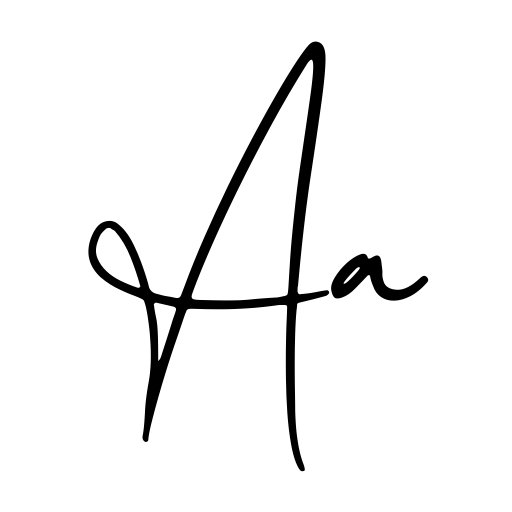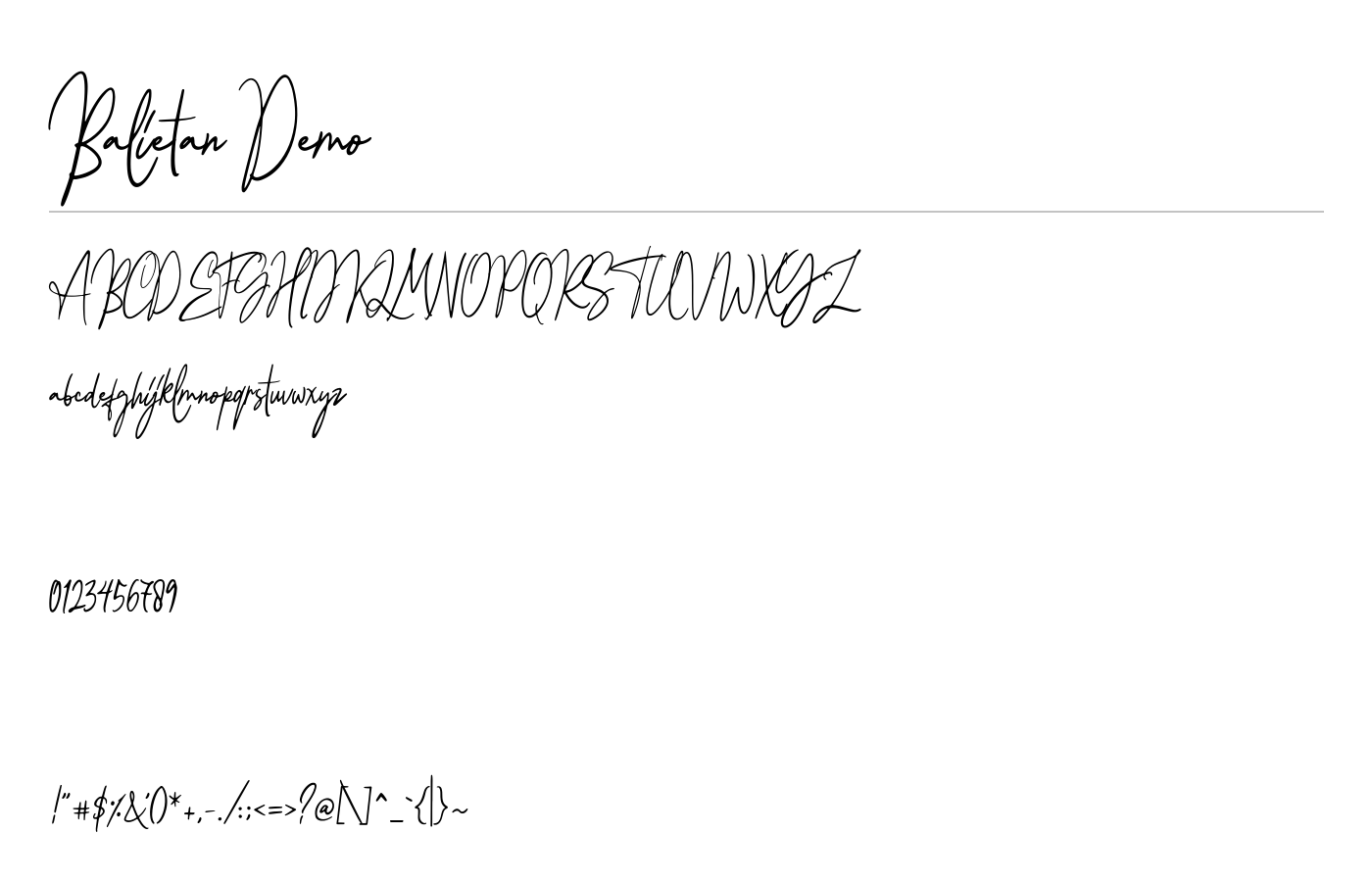
Balietan Demo is a delicate, hand-drawn script font that features a tall, narrow structure with a light weight and elegant, flowing strokes. Its informal, yet refined style makes it perfect for creative projects that seek a personal, artistic touch, such as invitations, branding, and fashion-related designs. This font works best in headlines and decorative contexts where its unique, airy character can shine without sacrificing readability.
Balietan Demo Font
About Balietan Demo Font